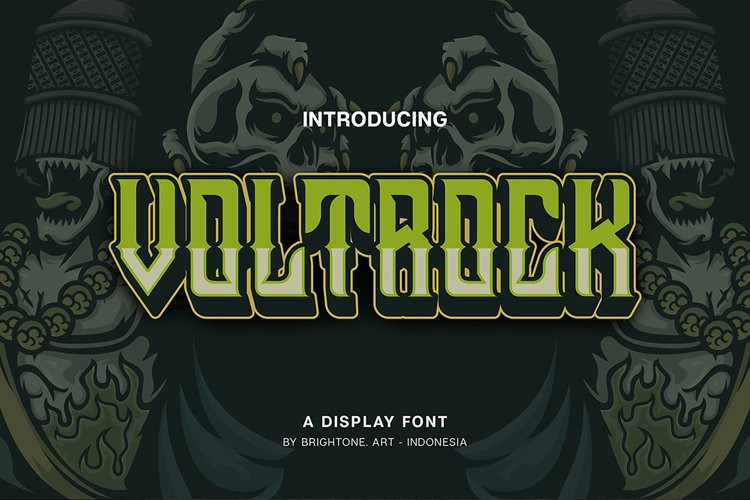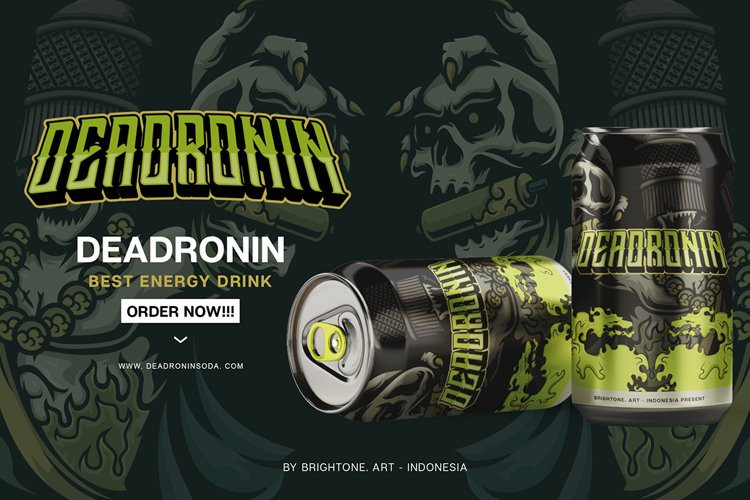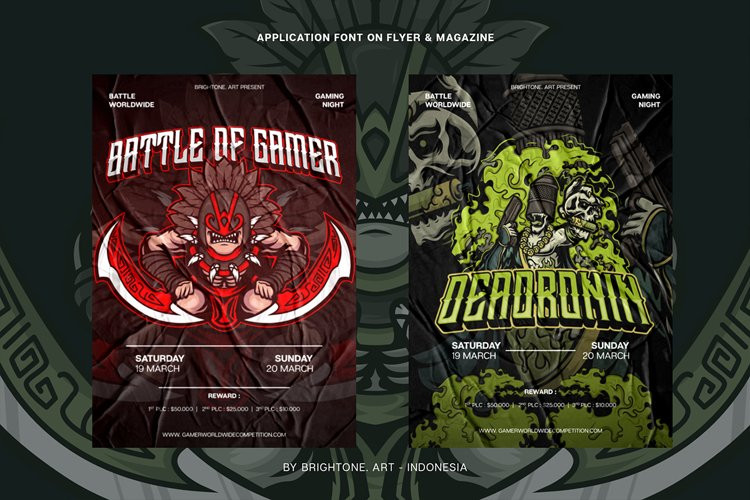
Voltrock Font
Voltrock FontVOLTROCK is modern display font with e-sport style,
VOLTROCK font is suitable to use for all purpose for your logo lettering, logo, label, packaging, sticker, branding and many more.